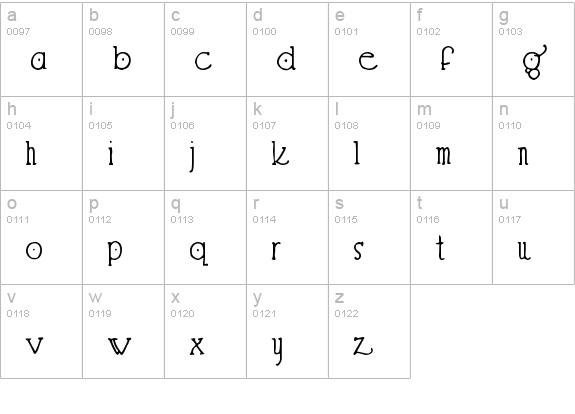
Hendershot font is a unique and modern typeface that exudes elegance and sophistication. With its sleek lines and stylish curves, this font is perfect for adding a touch of class to any design project. Whether you're creating a logo, branding materials, or a website, Hendershot font will make your text stand out and grab attention. What's even better is that Hendershot font is available for free download at FontsMarket.com. You can easily access this stunning font and use it in your personal and commercial projects without any restrictions. Don't miss out on this amazing opportunity to enhance your designs with the beauty of Hendershot font. Download it now and elevate your creative work to the next level!